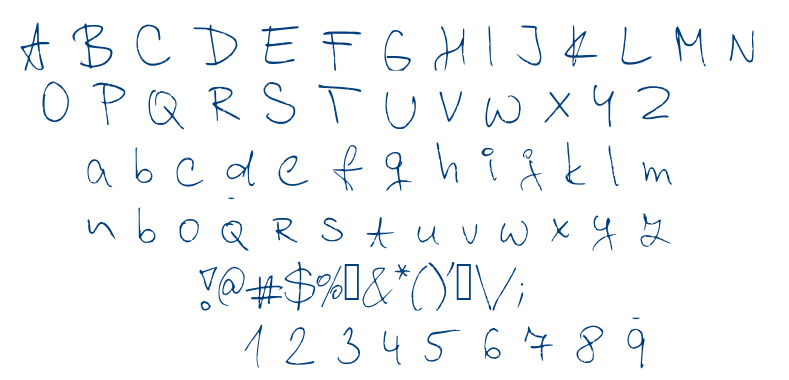
Tiny Small Medium Large Kordulova font liz_kordulova Website Kordulova.ttf Download 1484 downloads Free for personal use Category: Basic Font “Kordulova” is basically my handwriting (Font I added before was untitled) Character Map specimen sheet